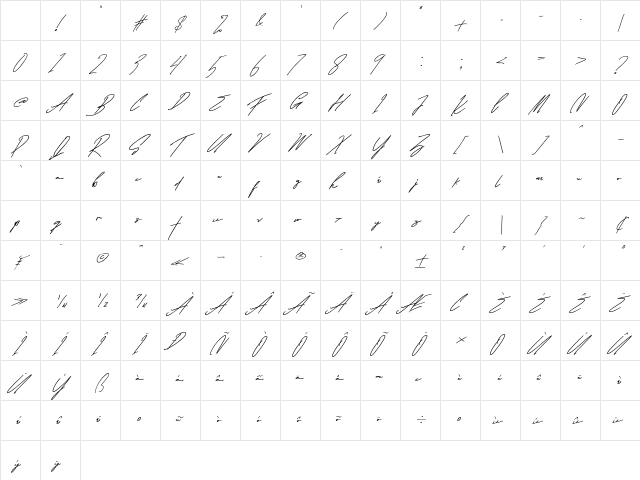
Complete Emilone Ricta Regular glyph index. Displaying only characters natively supported by Emilone Ricta Regular font.
Emilone Ricta is a composed and adaptable typeface that performs quietly and consistently across a wide range of design contexts.